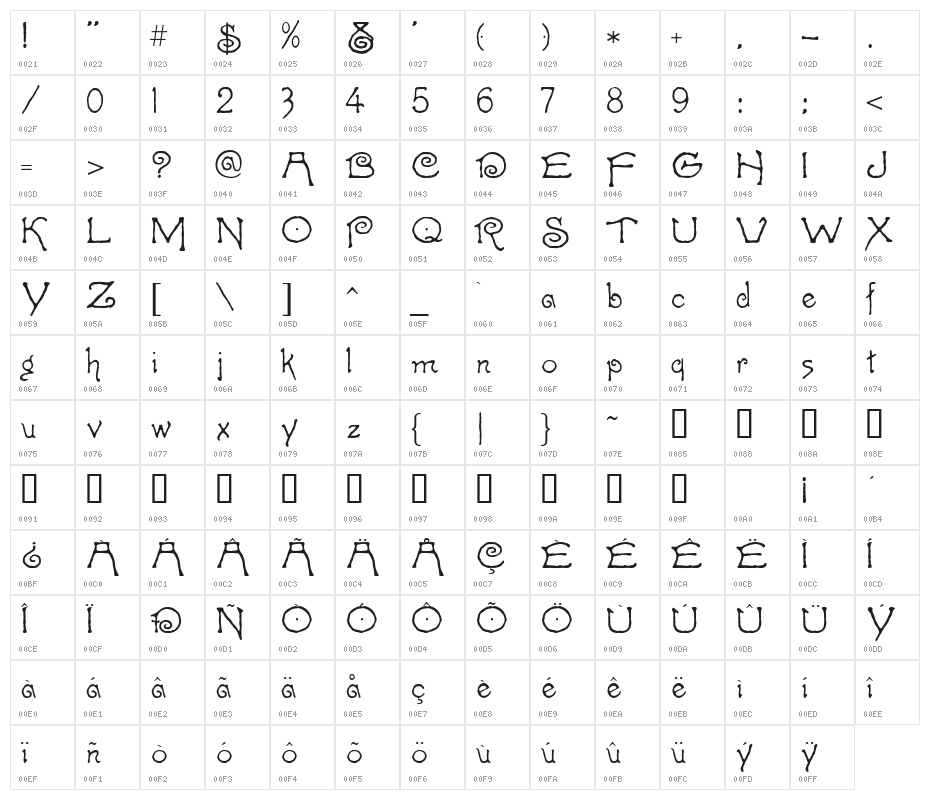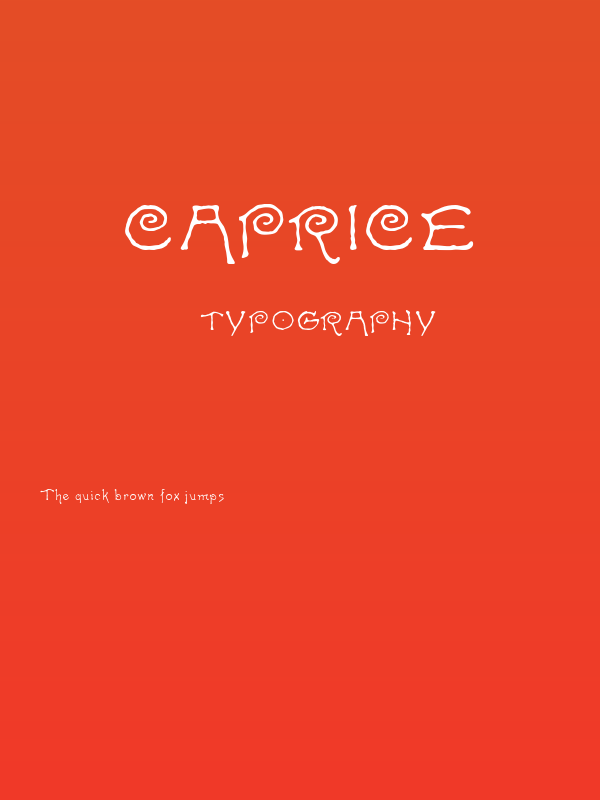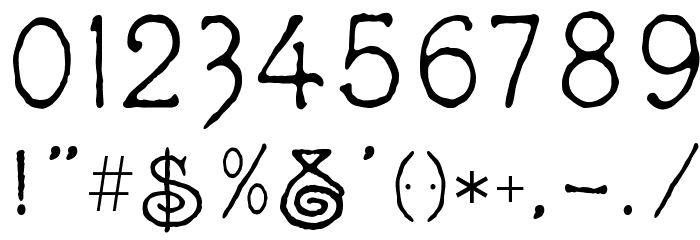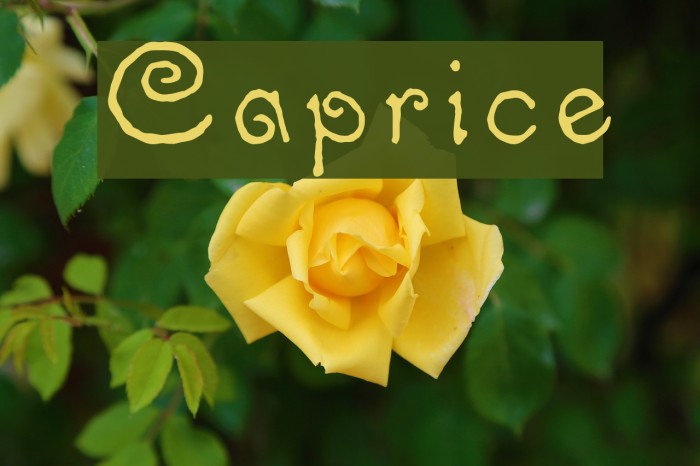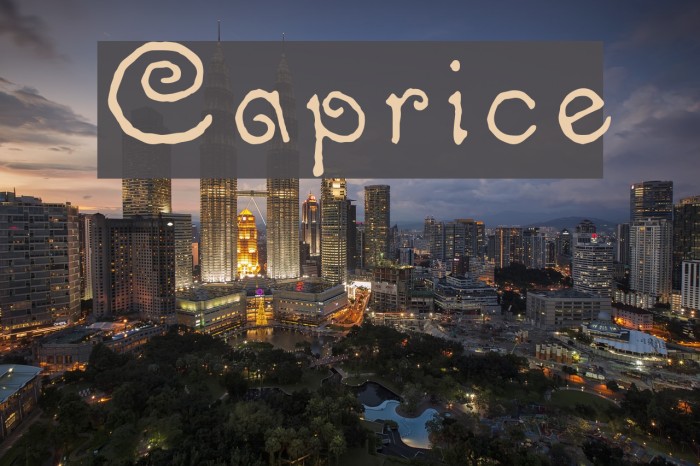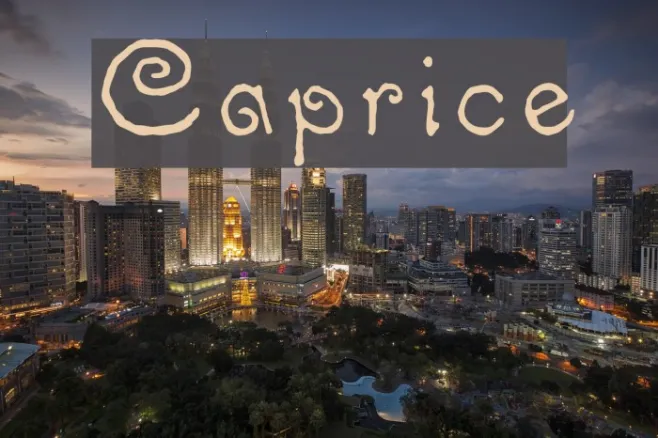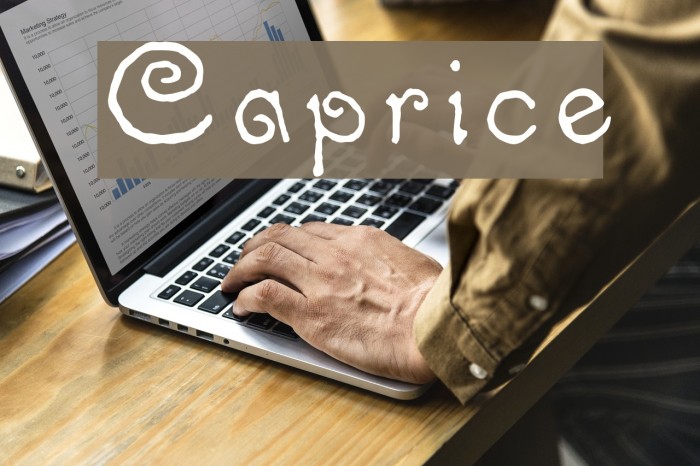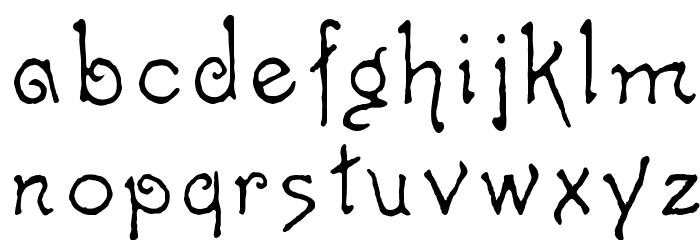
Caprice Font
Caprice Description
This font features a whimsical and playful design, characterized by its irregular and hand-drawn appearance. The letters have a quirky, artistic flair with varying stroke thicknesses and unique embellishments, such as spirals and curls, adding to its charm. The uppercase and lowercase letters maintain a consistent style, with a slightly uneven baseline that enhances its casual and informal feel. The numerals and special characters are equally distinctive, with creative interpretations that align with the overall aesthetic. This font is ideal for projects that require a touch of creativity and individuality.
CAPRICE UPPERCASE
CAPRICE LOWERCASE
CAPRICE OTHER CHARS